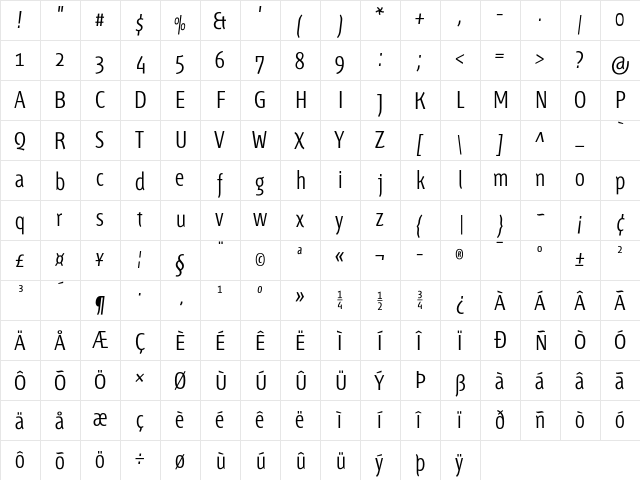
Fontana ND Cc OsF Light
Design Context for Fontana ND Cc OsF Typeface
Fontana ND Cc OsF offers clean, dependable letterforms without strong stylistic allegiance, making it a practical choice for designers who need flexibility. Its slender proportions lend an understated elegance to any composition.